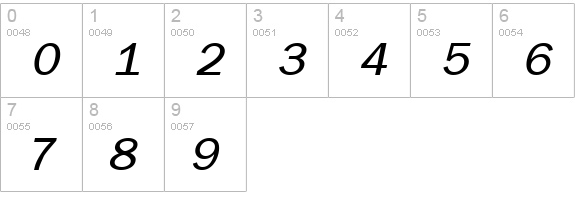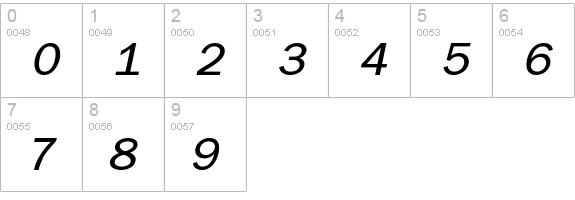
LibraryGothicMediumItalic Font Details
LibraryGothicMediumItalic font is a sophisticated and elegant typeface that adds a touch of drama to any design. Its sleek and stylish letterforms make it perfect for creating a modern and professional look. The italicized version of LibraryGothicMedium retains the classic charm of the font while adding a dynamic flair to text. Best of all, LibraryGothicMediumItalic is available for free download at FontsMarket.com. This means you can easily access this premium font without any cost, making it a valuable addition to your font collection. Whether you're designing a logo, website, or print materials, LibraryGothicMediumItalic is sure to elevate your project with its timeless appeal and contemporary edge. Download it today and unleash the power of this versatile typeface in your designs.